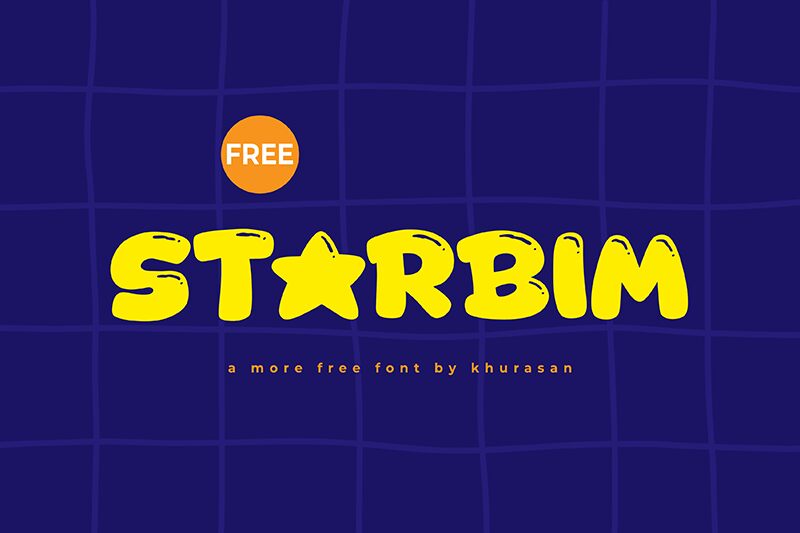
Starbim font, designed by Khurasan, captures a graffiti-inspired, whimsical vibe. This bold, expanded display font radiates youthfulness and energy with its cartoon-like style and distinct visual flair. Perfect for attracting attention and setting a playful tone in contemporary projects.
Starbim